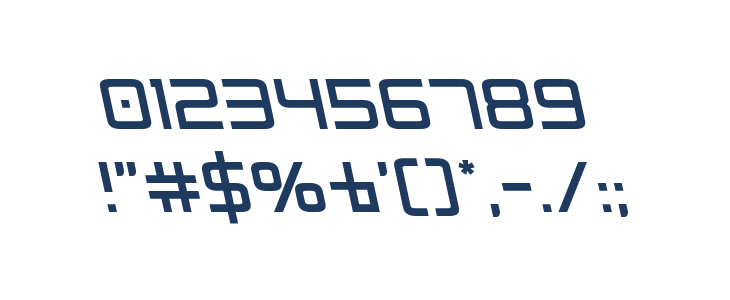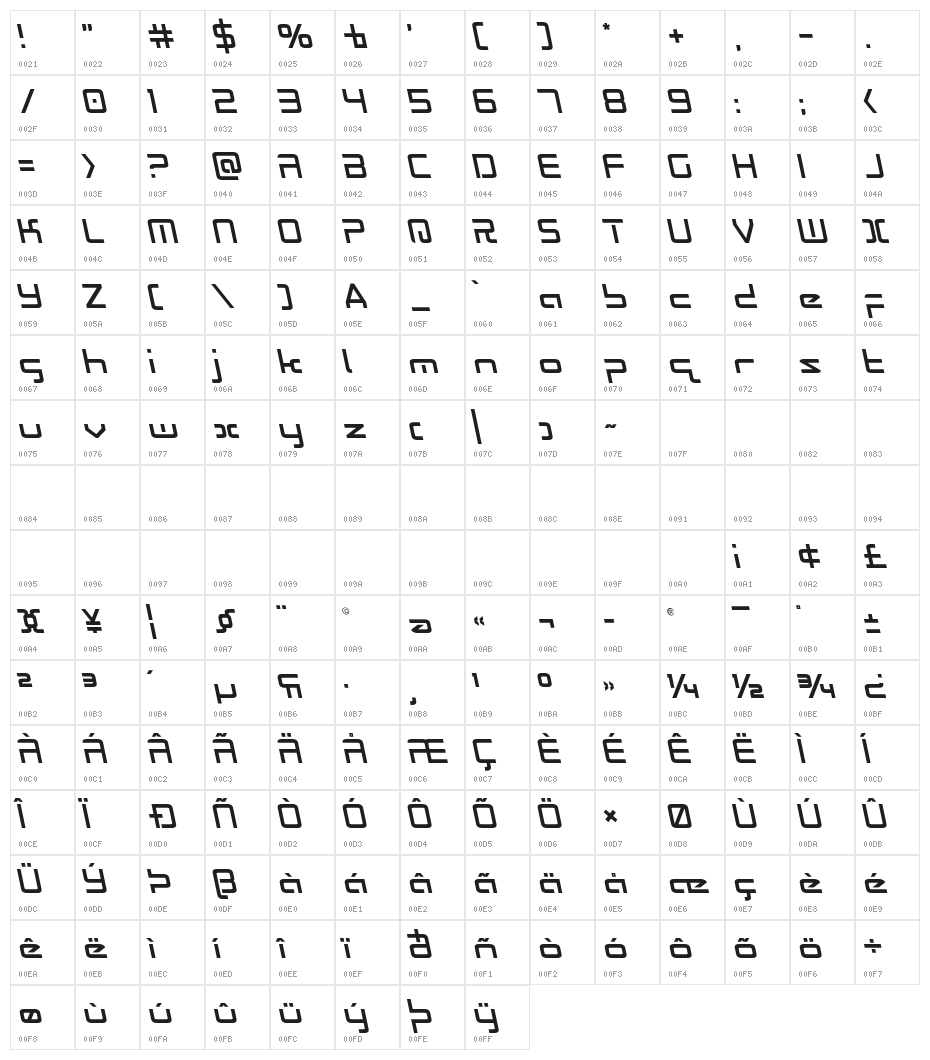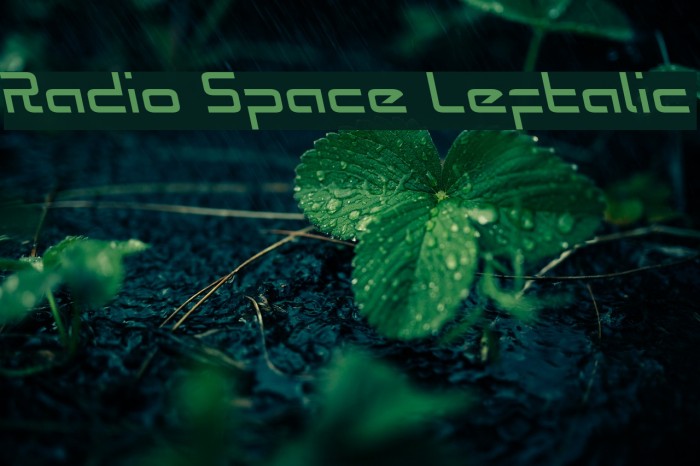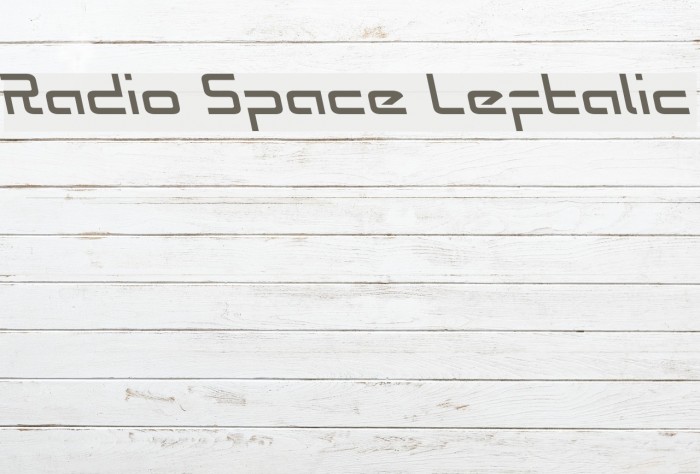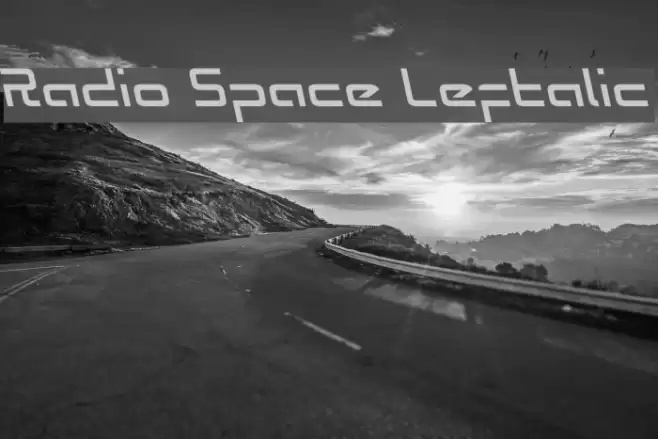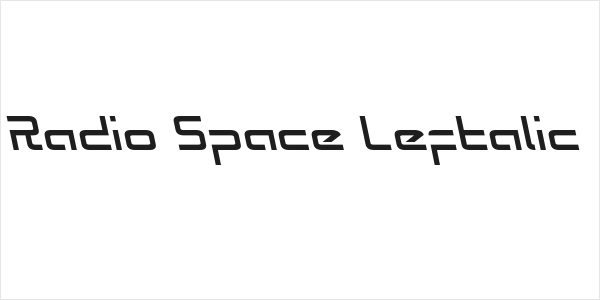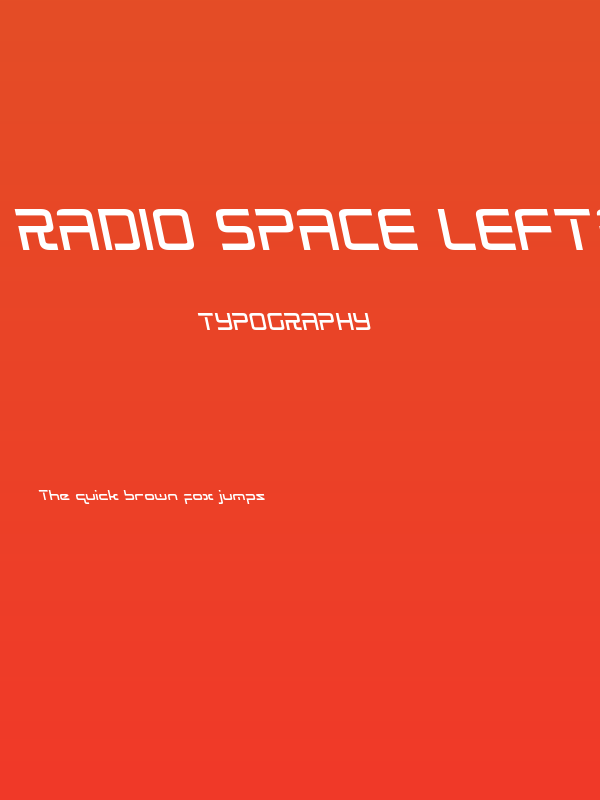
Radio Space Leftalic Font
Radio Space Leftalic Description
This font features a futuristic and geometric design, characterized by its angular and streamlined letterforms. The characters exhibit a consistent stroke width, contributing to a uniform appearance. The uppercase and lowercase letters maintain a cohesive style, with sharp edges and a slight slant that adds a dynamic feel. The numerals and special characters are designed to match the overall aesthetic, ensuring visual harmony across all elements. This font's modern and sleek look makes it suitable for projects that require a contemporary and tech-inspired touch.
| Proposed Projects | Ideal for technology branding, sci-fi posters, video game interfaces, and modern advertising. |